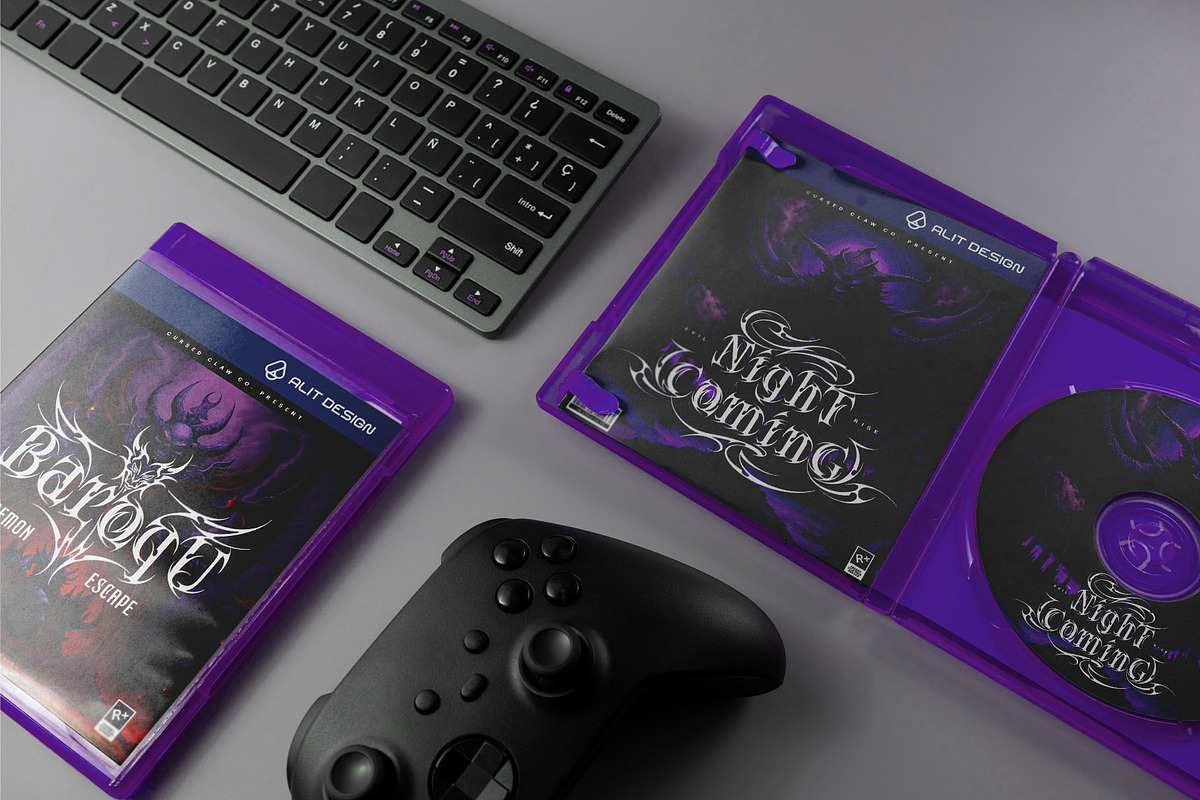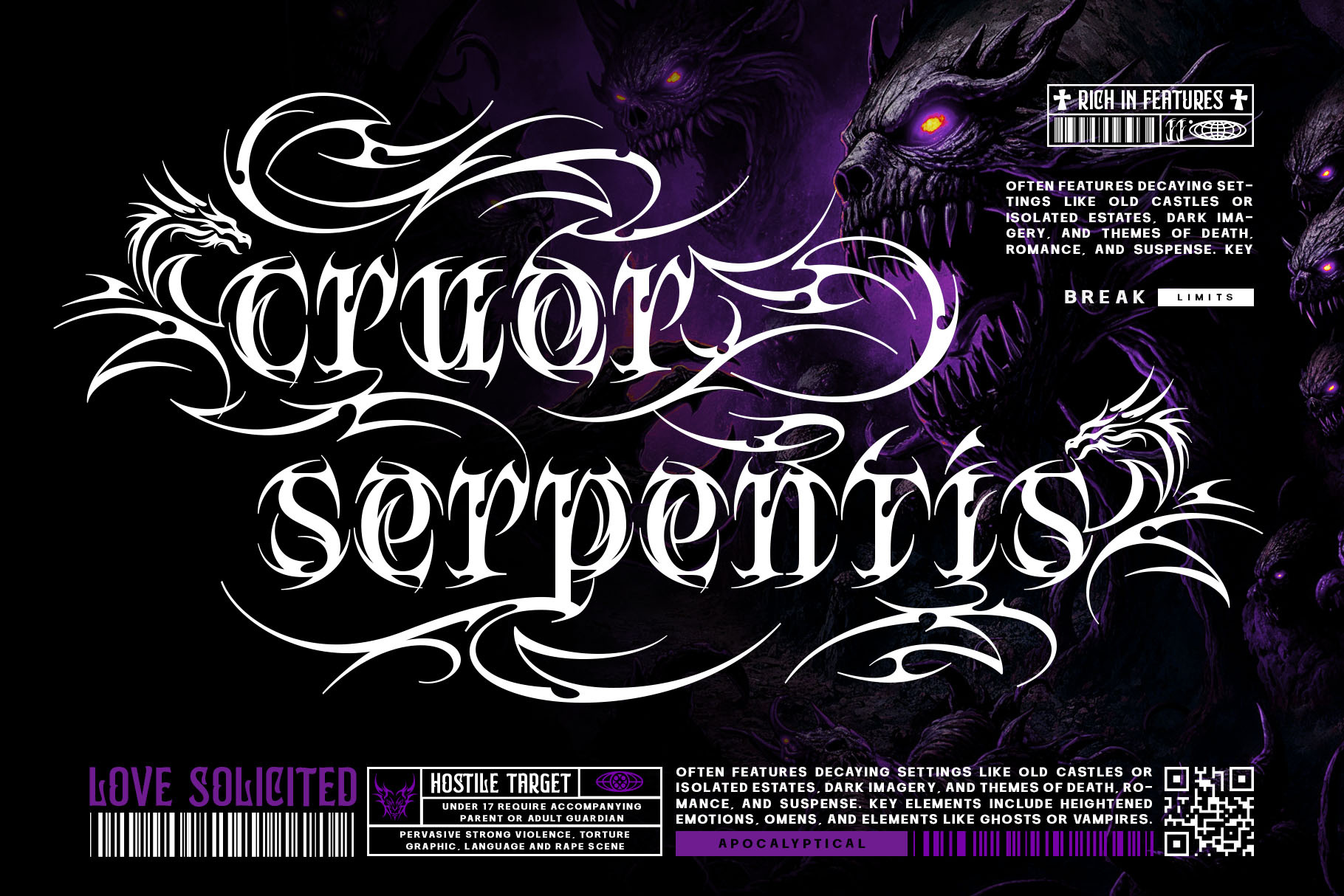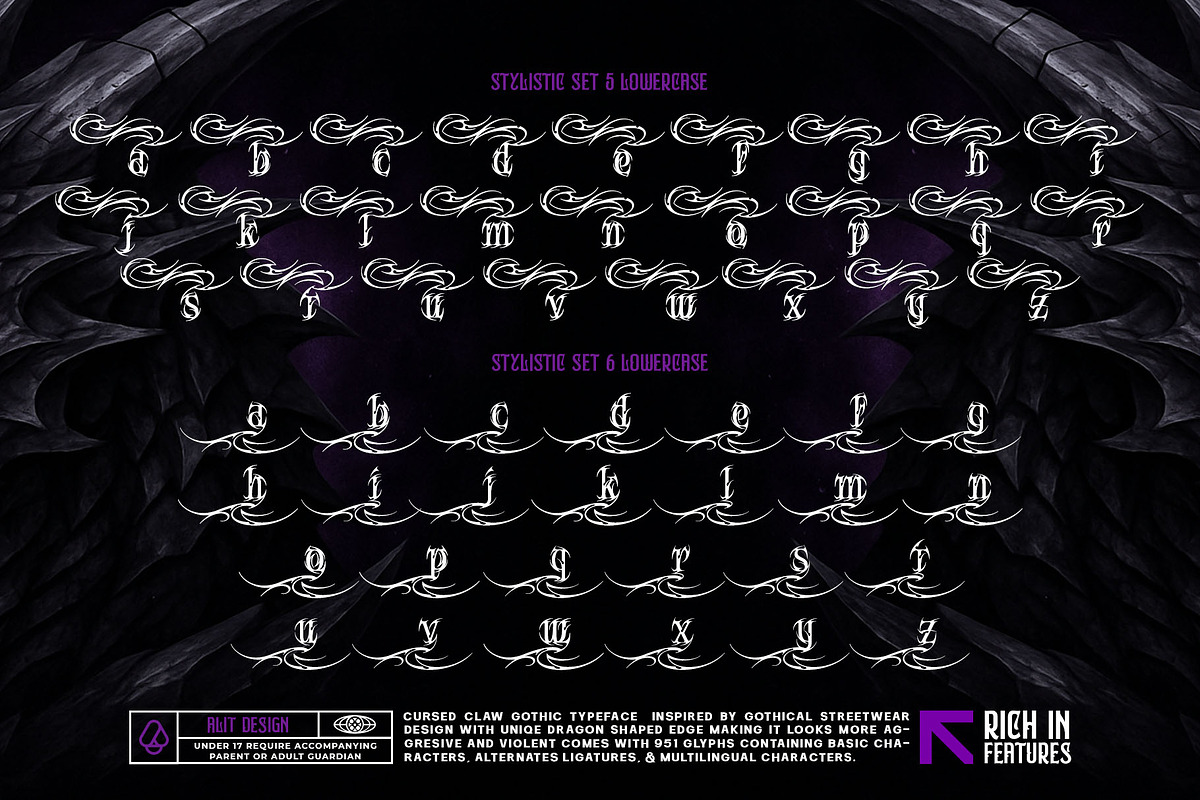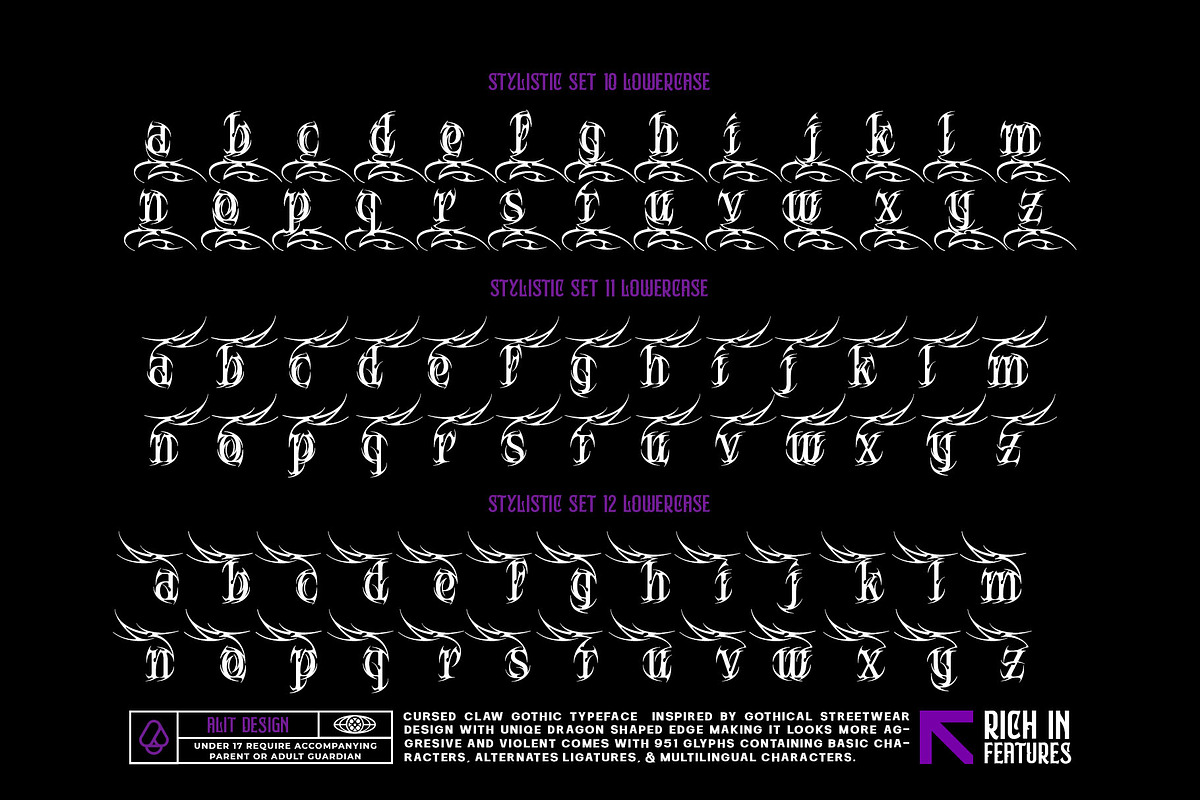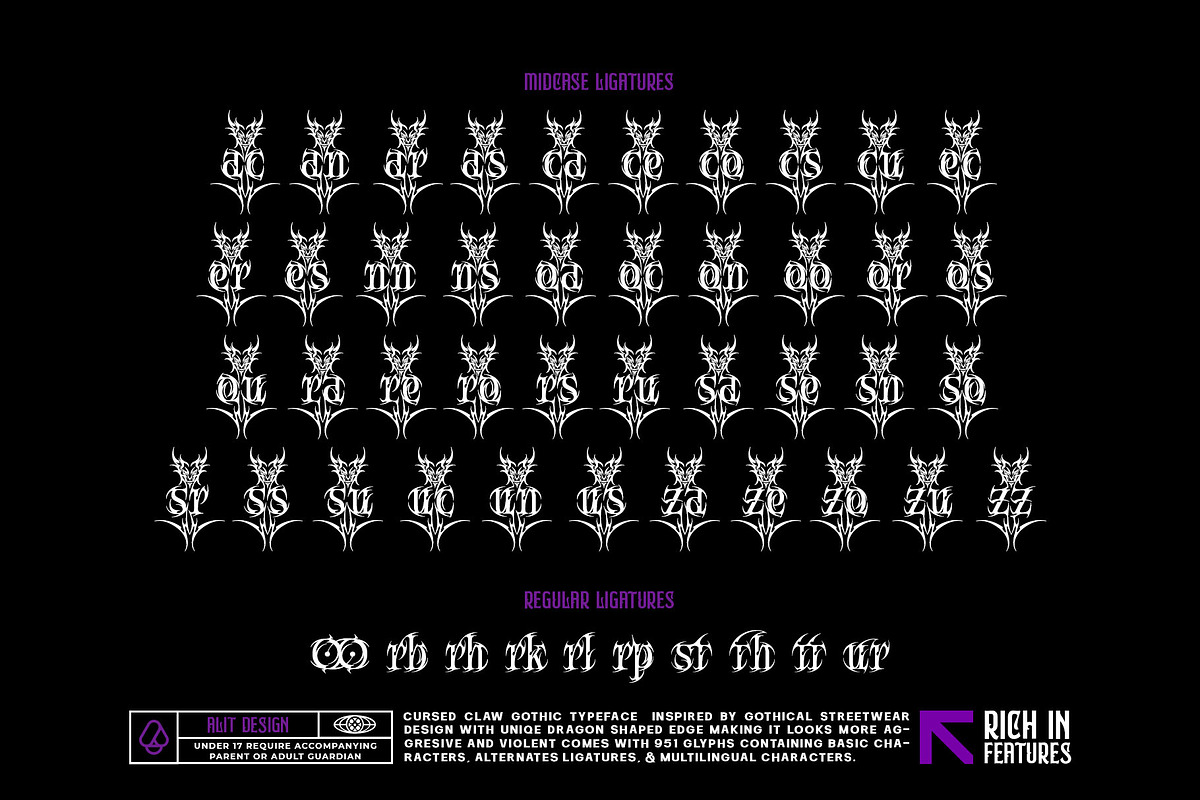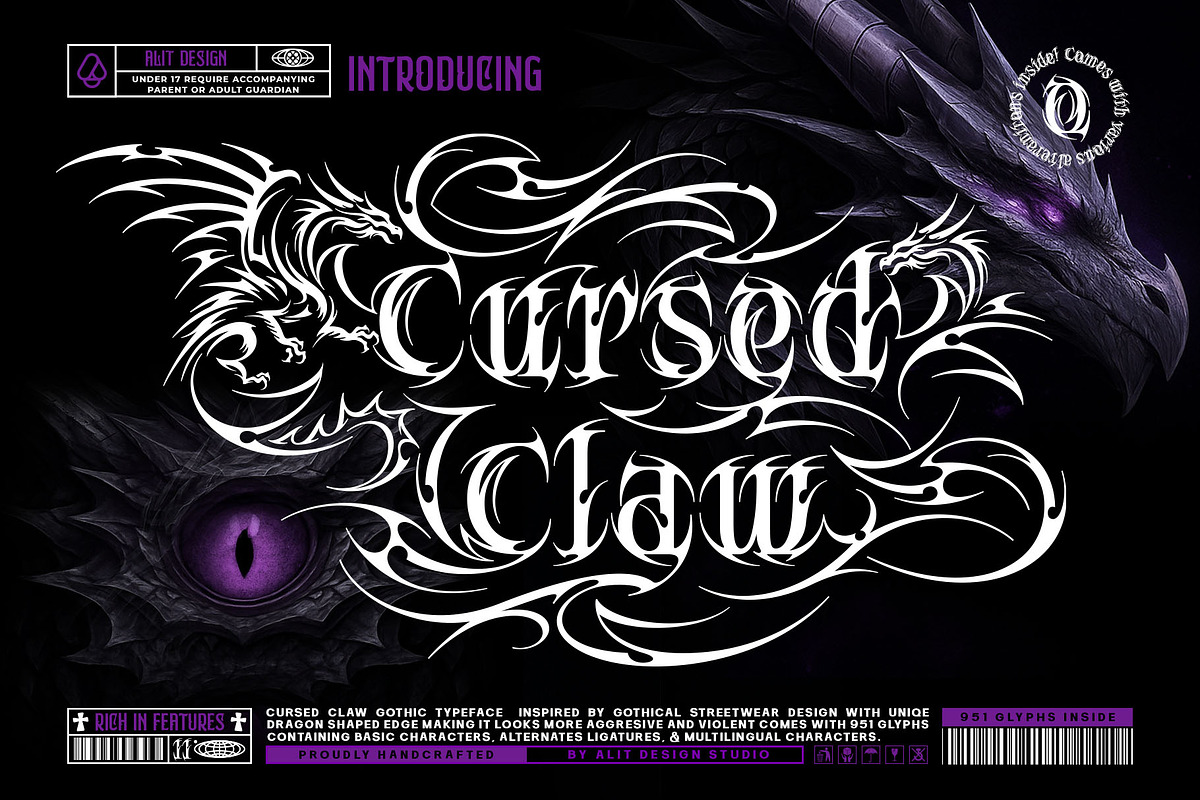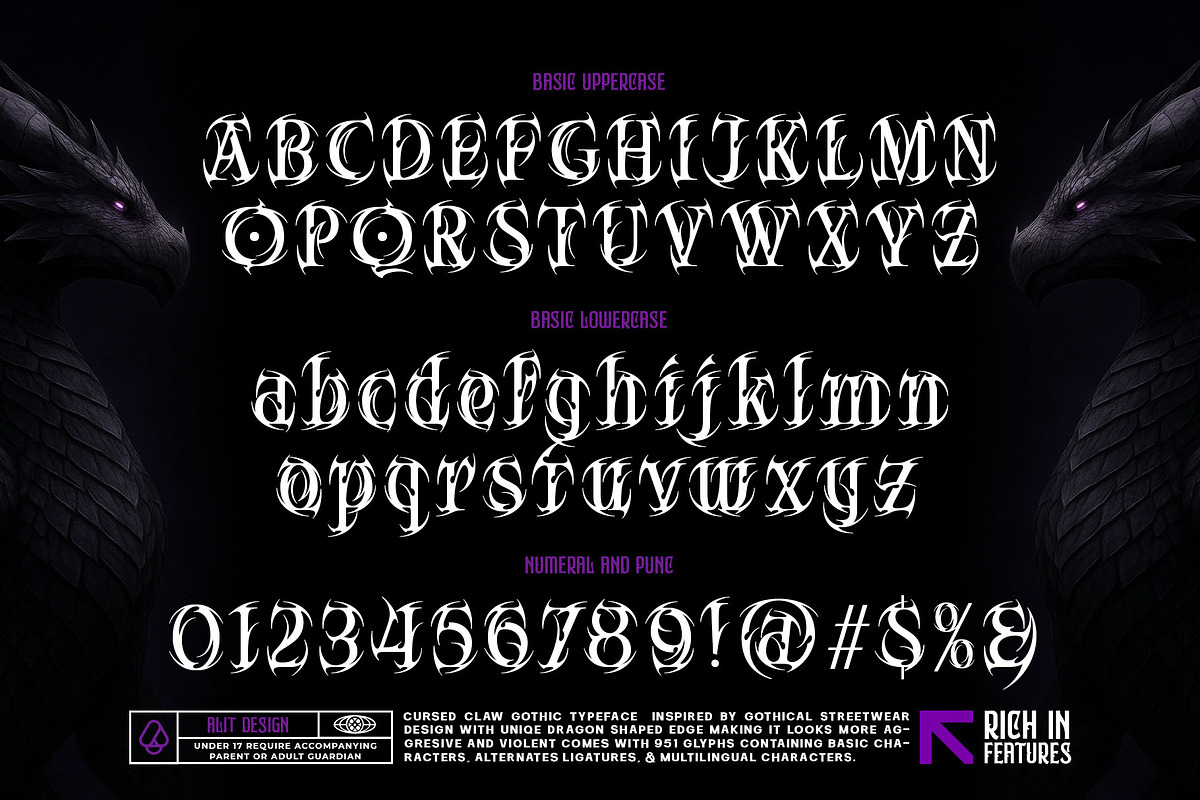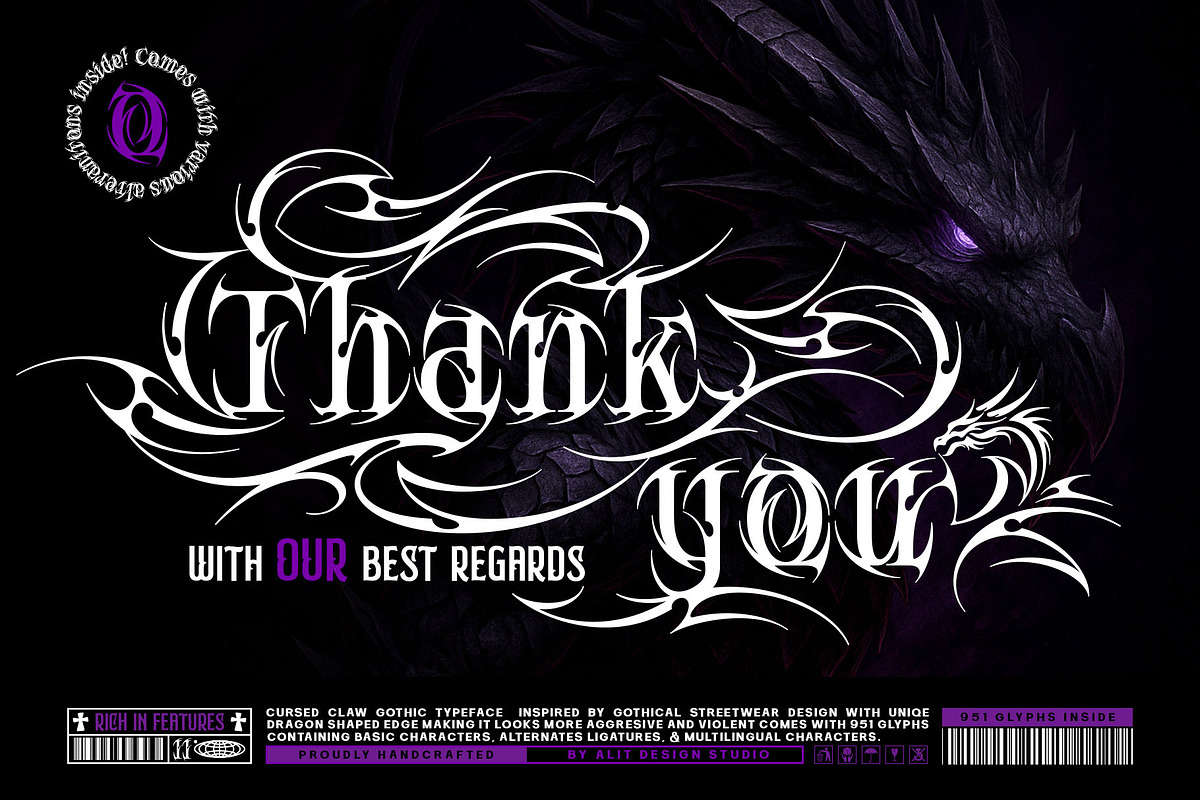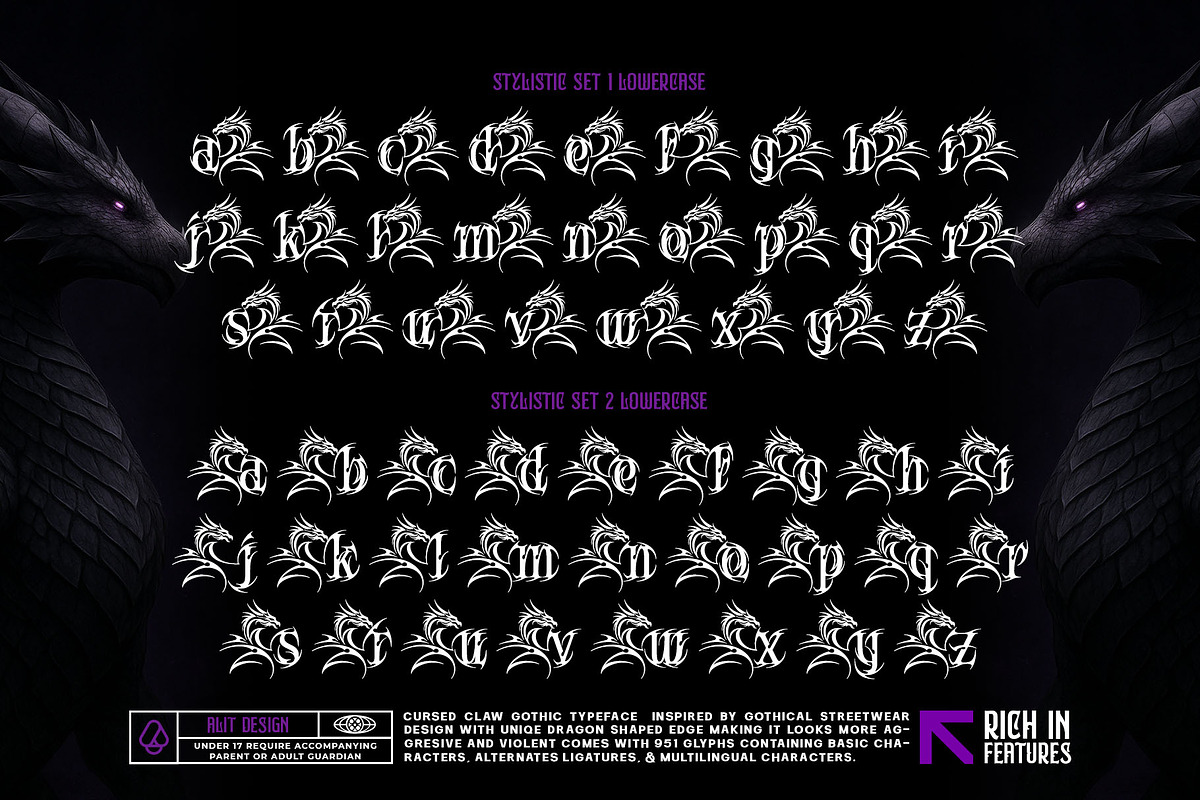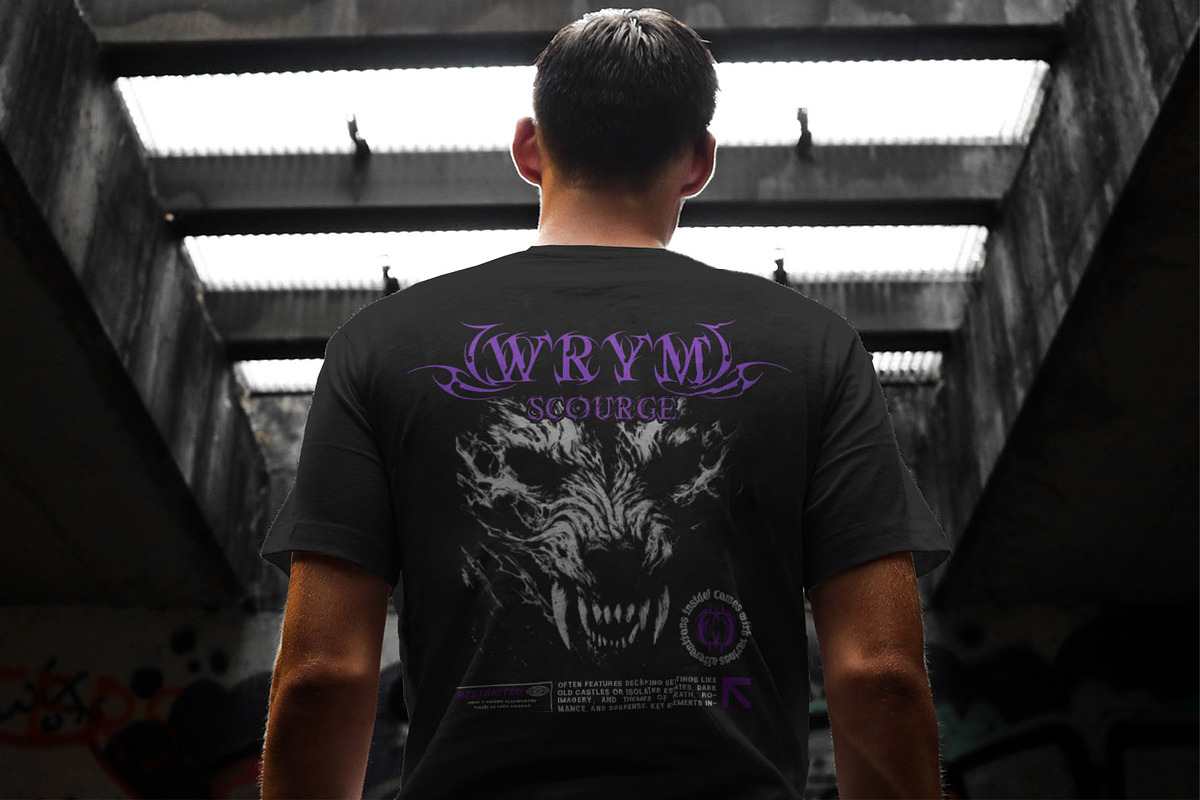
Cursed Claw Typeface
Cursed Claw – Aggressive Tribal Gothic Typeface
Unleash the Beast: Where Ancient Myth Meets Modern Streetwear.
The Story Introduce Cursed Claw, a typographic embodiment of darkness and dominance. This isn't just a font; it is a weapon for your design arsenal. Inspired by the raw aggression of "Gothical Streetwear" and the intricate sharp edges of tribal tattoos, Cursed Claw evokes the spirit of ancient dragons. Every stroke is carved with a "dragon-shaped edge," making it look venomous, violent, and undeniably captivating.
The Aesthetic Cursed Claw bridges the gap between medieval blackletter traditions and the rebellious energy of modern underground culture. It is perfectly engineered for designs that demand attention—from death metal album covers and grim fantasy branding to high-end streetwear merchandise.
Why Cursed Claw? With a massive library of 951 glyphs, Cursed Claw offers valid versatility. It is not static; it is a living, breathing creature. You can customize your typography endlessly with multiple Stylistic Sets (SS01-SS04), allowing you to switch between decorative, dragon-scale ornate capitals and sharper, more legible forms.
- Streetwear Brands: T-shirt designs, hoodies, and edgy logos.
- Music Industry: Heavy metal band logos, album art, and gig posters.
- Gaming: RPG titles, clan logos, and e-sports branding.
- Tattoo Art: Stencils and lettering designs.
Feature Highlights:
- 💀 951 Total Glyphs: An enormous selection of characters.
- 💀 Unique Dragon-Edge Detailing: Sharp, scale-like textures on every letter.
- 💀 Extensive Alternates: Includes Stylistic Sets (SS01, SS02, SS03, SS04) for ultimate customization.
- 💀 Ligatures & Swashes: For that hand-drawn, custom lettering feel.
- 💀 Multilingual Support: Speaking the language of darkness globally.